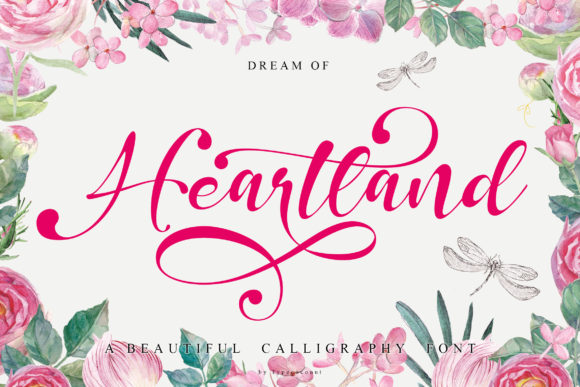
Why Dream of Heartland Became My Go-To Display Font for Web Projects
I remember the moment clearly. I was staring at a hero section mockup for a boutique wellness studio, and nothing felt right. The sans serif I had chosen was clean but cold. The serif felt too academic. Then I dropped in Dream of Heartland as a headline placeholder, and the whole layout started breathing. That first impression of its handwritten warmth and swash-driven elegance is something I still chase in every project. This is the story of how I tested Dream of Heartland in a real website build, what I learned about readability and brand impact, and why it earned a permanent spot in my digital toolkit.
The First Test: Placing Dream of Heartland in a Hero Banner
The project was a landing page for a small online store selling handcrafted journals and stationery. The brand identity needed to feel personal, artistic, and trustworthy. I wanted the headline to stop a visitor mid-scroll and say something like, “This place has soul.” Dream of Heartland delivered that immediately. The ligatures and swashes gave the title a flowing, organic rhythm that no standard font could replicate. On desktop, the large headline sat beautifully over a soft background image. The contrast was strong enough to keep the text legible, and the decorative flourishes felt intentional rather than distracting.
What surprised me most was how the font handled the call-to-action button copy underneath. Short phrases like “Shop the Collection” or “Find Your Story” took on a hand-lettered charm that made the button feel less like a button and more like an invitation. I did, however, adjust the letter-spacing slightly to improve clarity at smaller sizes. That tweak made all the difference for the secondary headline.
Readability Check: Does Dream of Heartland Work on Mobile?
Every web designer knows the real test is mobile. I pulled up the responsive preview and zoomed into the hero section on a 375-pixel viewport. The headline still carried its personality, but I noticed that the swashes could crowd the edges of the screen. My fix was simple: I used a slightly smaller font size for the mobile breakpoint and reduced the swash intensity by choosing alternate glyphs where available. This kept the handwritten feel without sacrificing clarity. The ligatures remained intact, and the word shapes stayed recognizable. For body text, I paired Dream of Heartland with a clean sans serif, and that combination held up well across devices.
If you plan to use Dream of Heartland on mobile hero sections, I recommend testing it on actual devices rather than relying solely on browser tools. The difference between a simulated viewport and a real phone screen can reveal subtle spacing issues that affect readability.
Where Dream of Heartland Shines in a Digital Layout
After the hero section, I started experimenting with other parts of the page. Here is where I found the font most effective:
I avoided using Dream of Heartland for long paragraphs, navigation menus, or form labels. Those areas need maximum legibility, and a script font, no matter how beautiful, slows reading speed. The key is to reserve it for moments where personality matters most.
Building Visual Hierarchy with Dream of Heartland
One of the biggest challenges in web design is guiding the visitor’s eye through the page without them thinking about it. Dream of Heartland helped me do that naturally. When I placed it in the main headline, the viewer’s attention landed there first. The flowing curves created a focal point that drew the eye down toward the supporting text. For subheadings, I used a lighter weight or reduced swash complexity so the hierarchy remained clear. This approach works especially well on landing pages where you want a single message to resonate before the visitor explores further.
On the product page of the journal store, I used Dream of Heartland for the product name and price display. The handwritten style matched the artisanal nature of the products, and customers mentioned later that the site felt “more personal” than other stationery shops they had visited. That kind of feedback reinforces why typography choices matter beyond aesthetics.
Font Pairing: Finding the Right Companion for Dream of Heartland
No display font works in isolation. I paired Dream of Heartland with a neutral sans serif for body copy, navigation, and footer content. The sans serif provided a stable, readable foundation while the script font added character. For a more editorial feel, I tested a serif font for the body, but the contrast felt too high for the brand’s casual tone. The sans serif pairing won because it kept the overall layout modern and approachable.
When choosing a pairing, look for a font that shares similar proportions or x-height. This creates a cohesive visual rhythm even when the styles differ dramatically. I also made sure the sans serif had enough weight variation to handle headings at smaller sizes without losing impact.
Technical Considerations Before Using Dream of Heartland on a Live Site